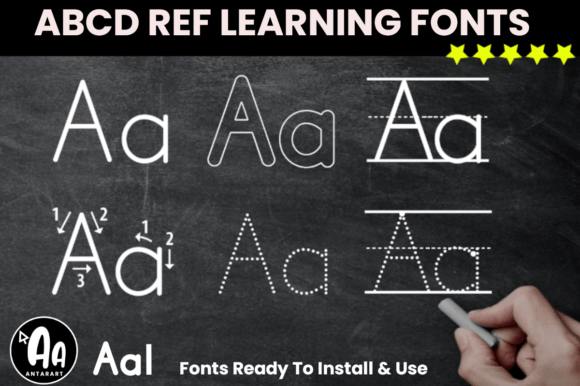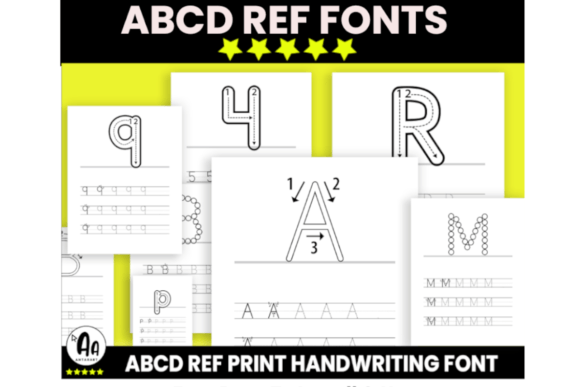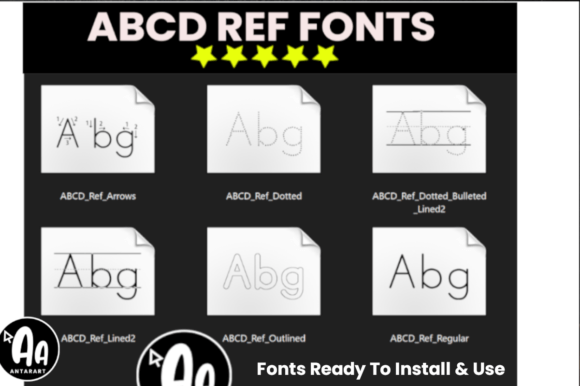
Abcd Tracing Alphabet Letters Bundle Font
About the Abcd Tracing Alphabet Letters Bundle Font
The Abcd Tracing Alphabet Letters Bundle Font is here to transform your projects with its distinctive character and style. These display fonts are based on the D’Nealian Method US school and help you create thousands of worksheets. It is a great learning resource for those who want to learn or teach the print alphabet enjoyably and interactively.
This font’s playful, hand-drawn style is ideal for children’s books, educational materials, and branding projects targeting a young audience. It works exceptionally well in headlines, short text sections, and playful illustrations. However, its informal nature makes it unsuitable for body text, long paragraphs, or applications requiring high readability, such as websites or UI.
The overall personality is undeniably childlike and friendly, emphasizing approachability and fun. This makes it a strong choice for projects that need to convey a sense of warmth and playfulness.
Abcd Tracing Alphabet Letters Bundle Font Usage Examples
Abcd Tracing Alphabet Letters Bundle Font Example